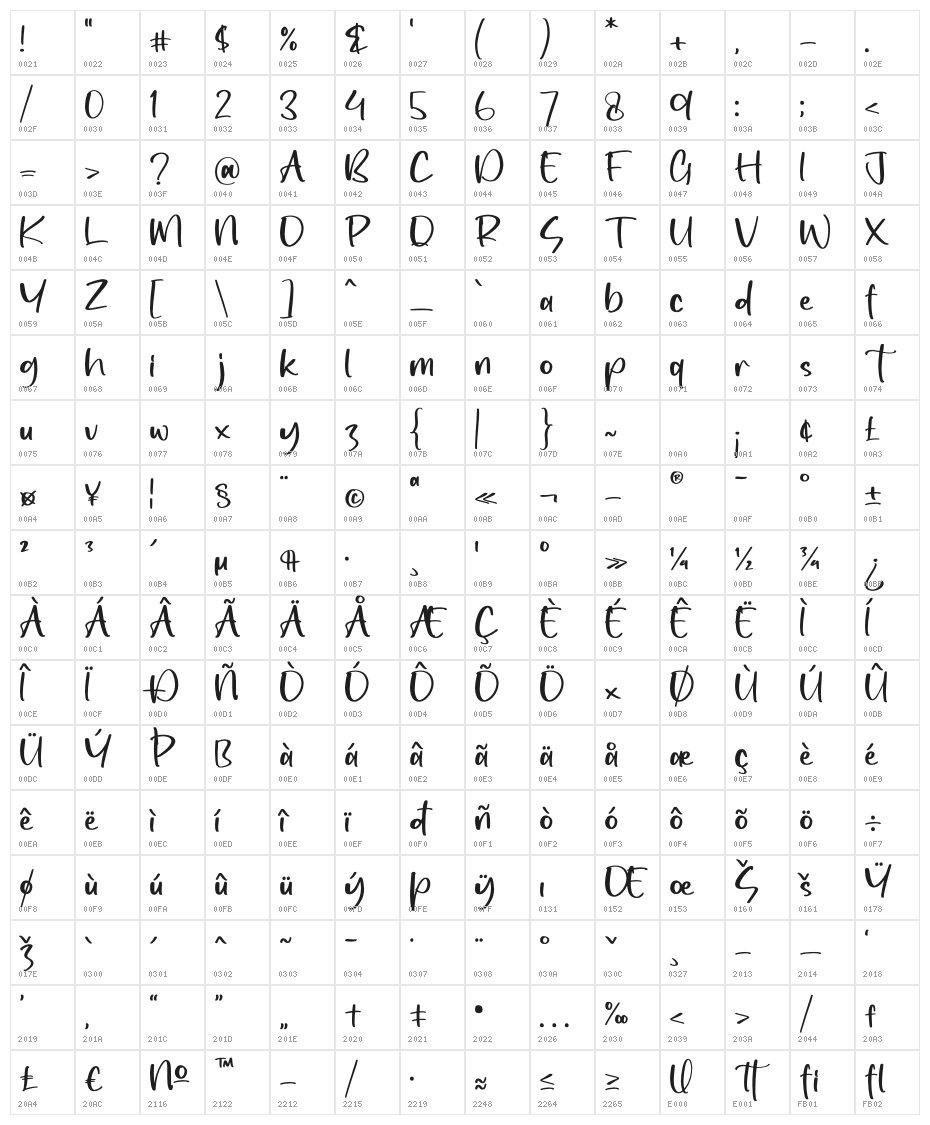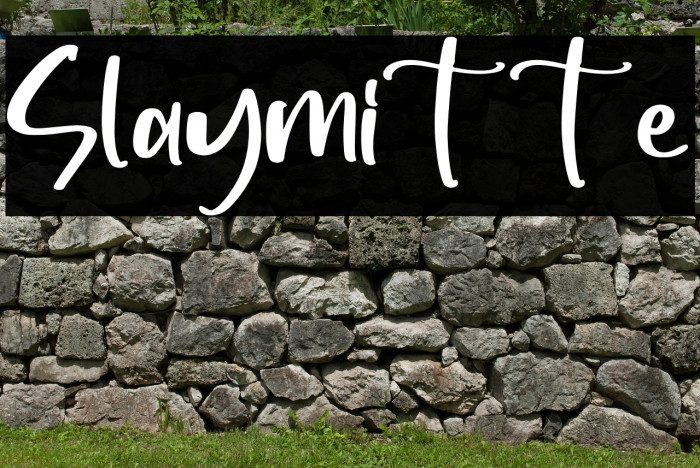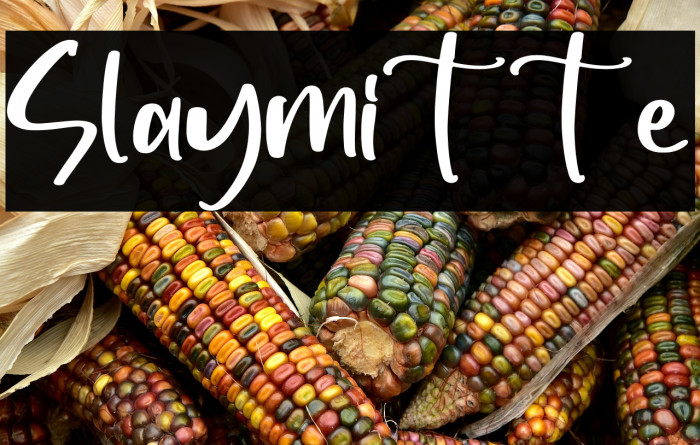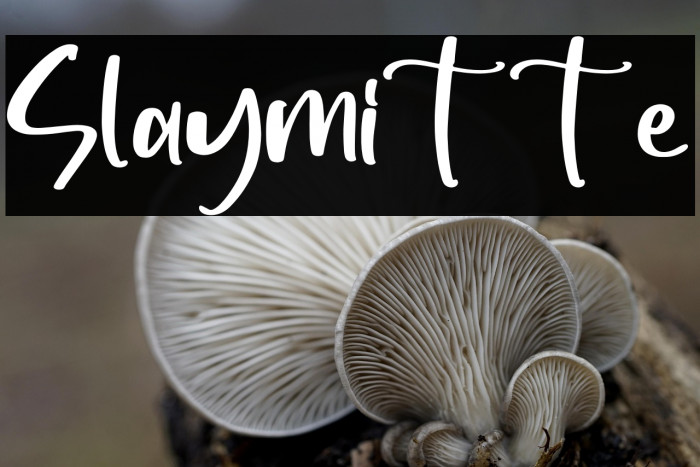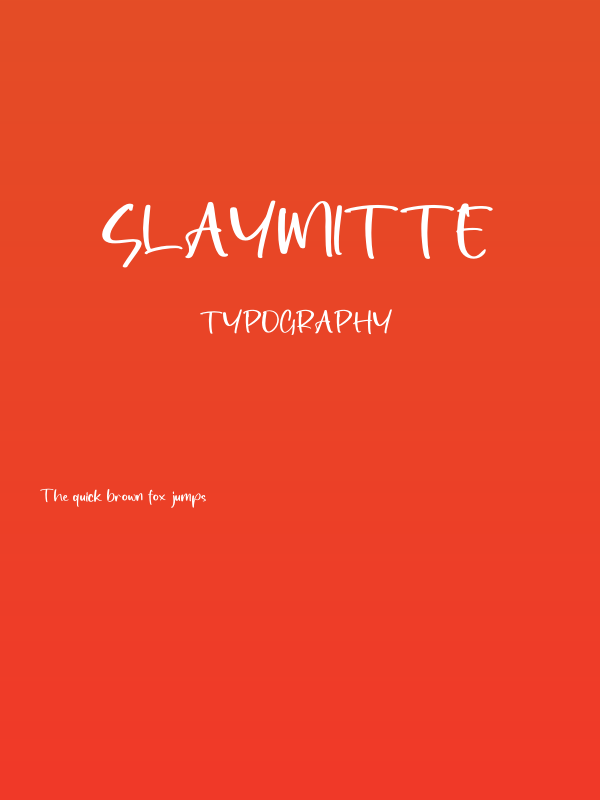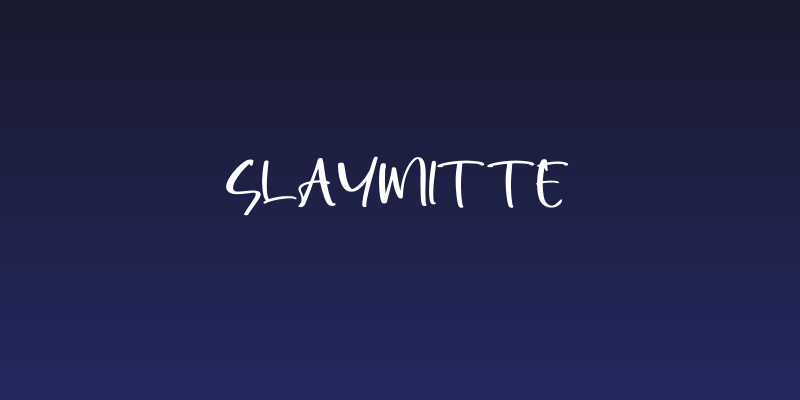
Slaymitte Font
Slaymitte Description
A playful and energetic handwritten font with a casual and informal style, featuring irregular strokes and varying line thickness.
| Overall Style | Casual and informal |
| Proposed Projects | Greeting cards, invitations, social media graphics. |